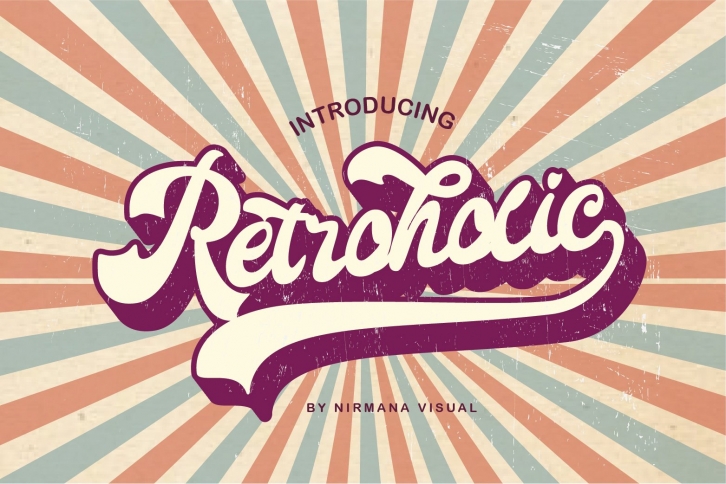
Retroholic
Inspired by 70s -80’s Era, Designed to work as perfect companions or simply as strong standalone typefaces.
offers beautiful typographic harmony for a diversity of design projects, including logos & branding, social media posts, advertisements & product designs.
- Hundred Style Alternate
- 3 style Ending Swashes